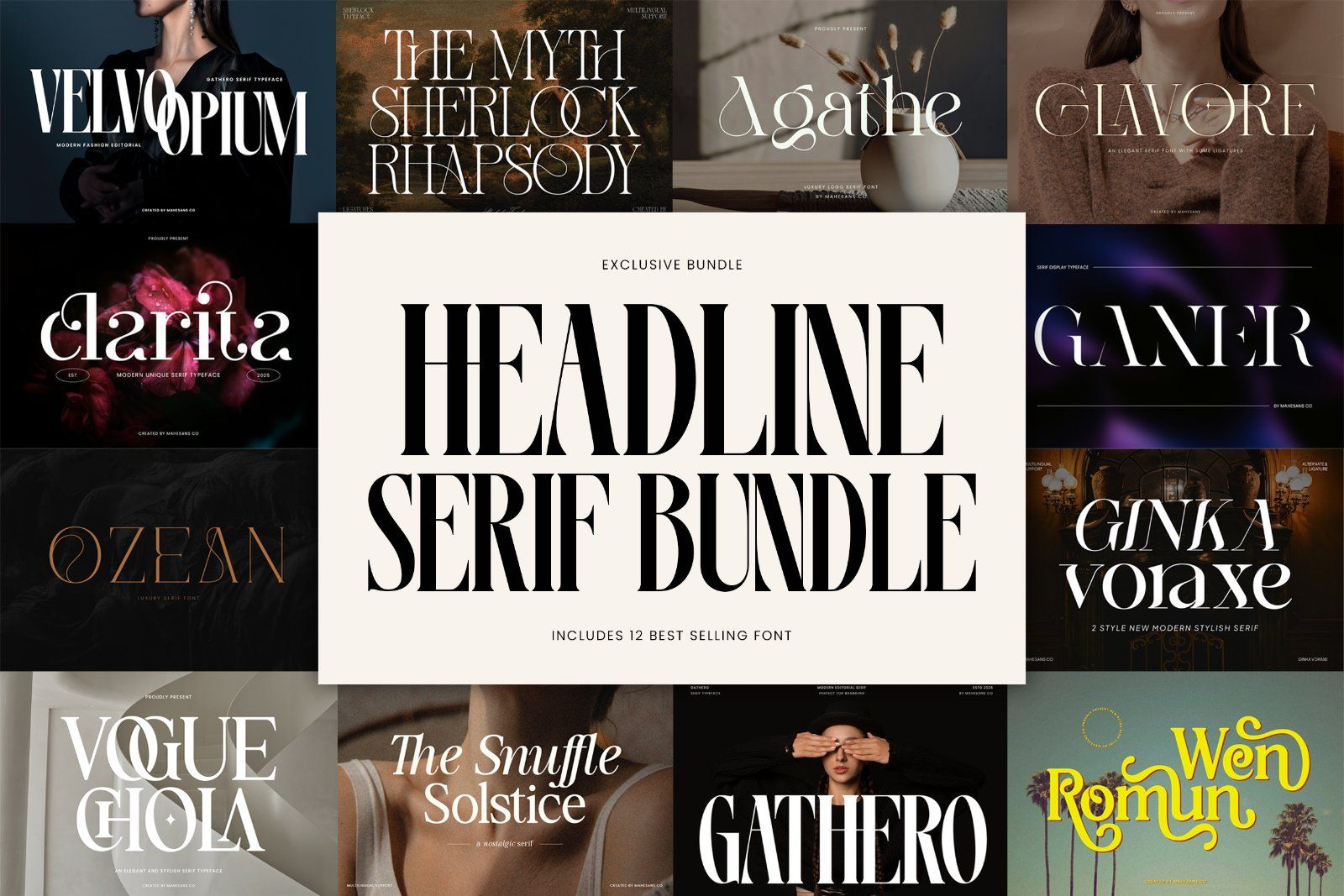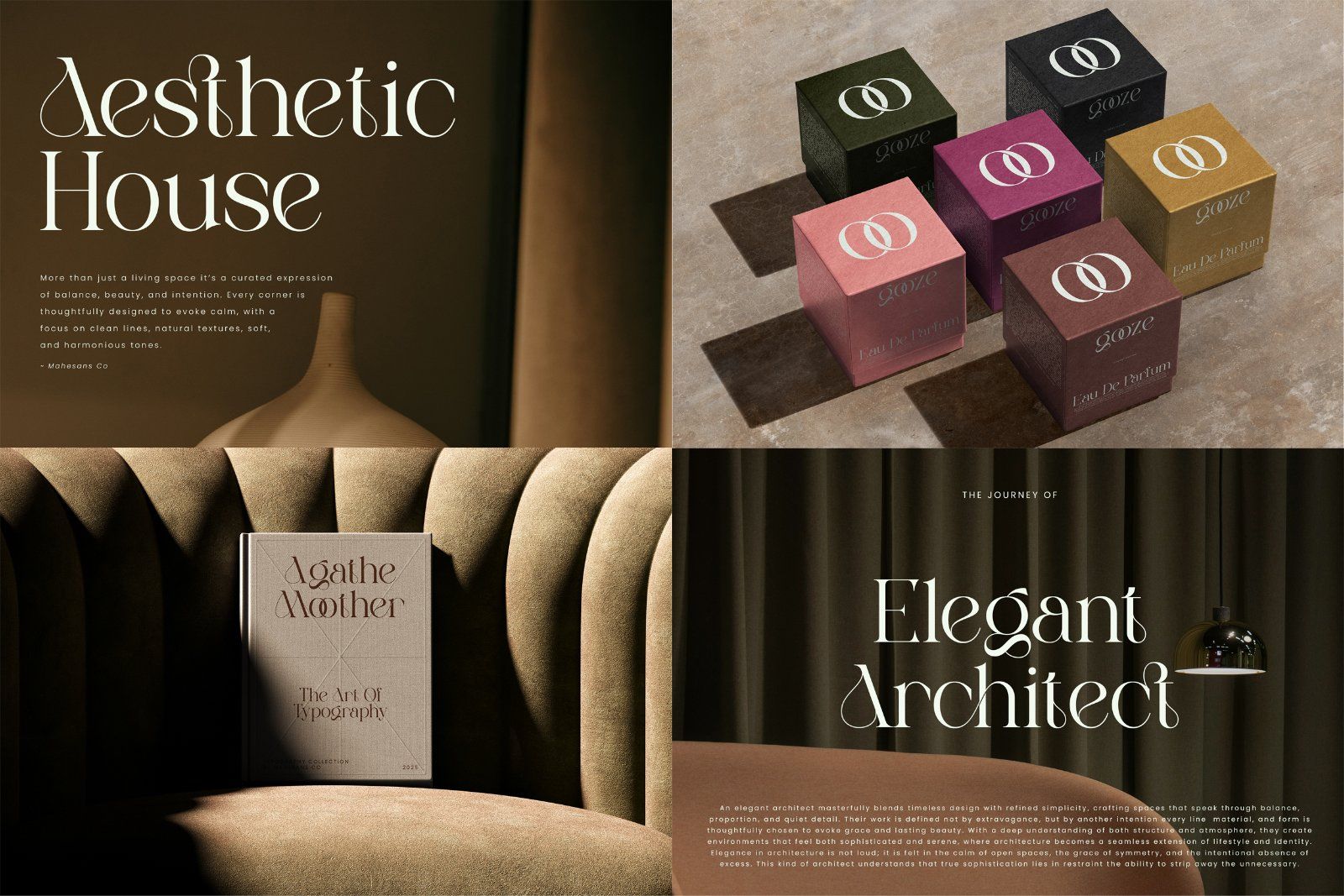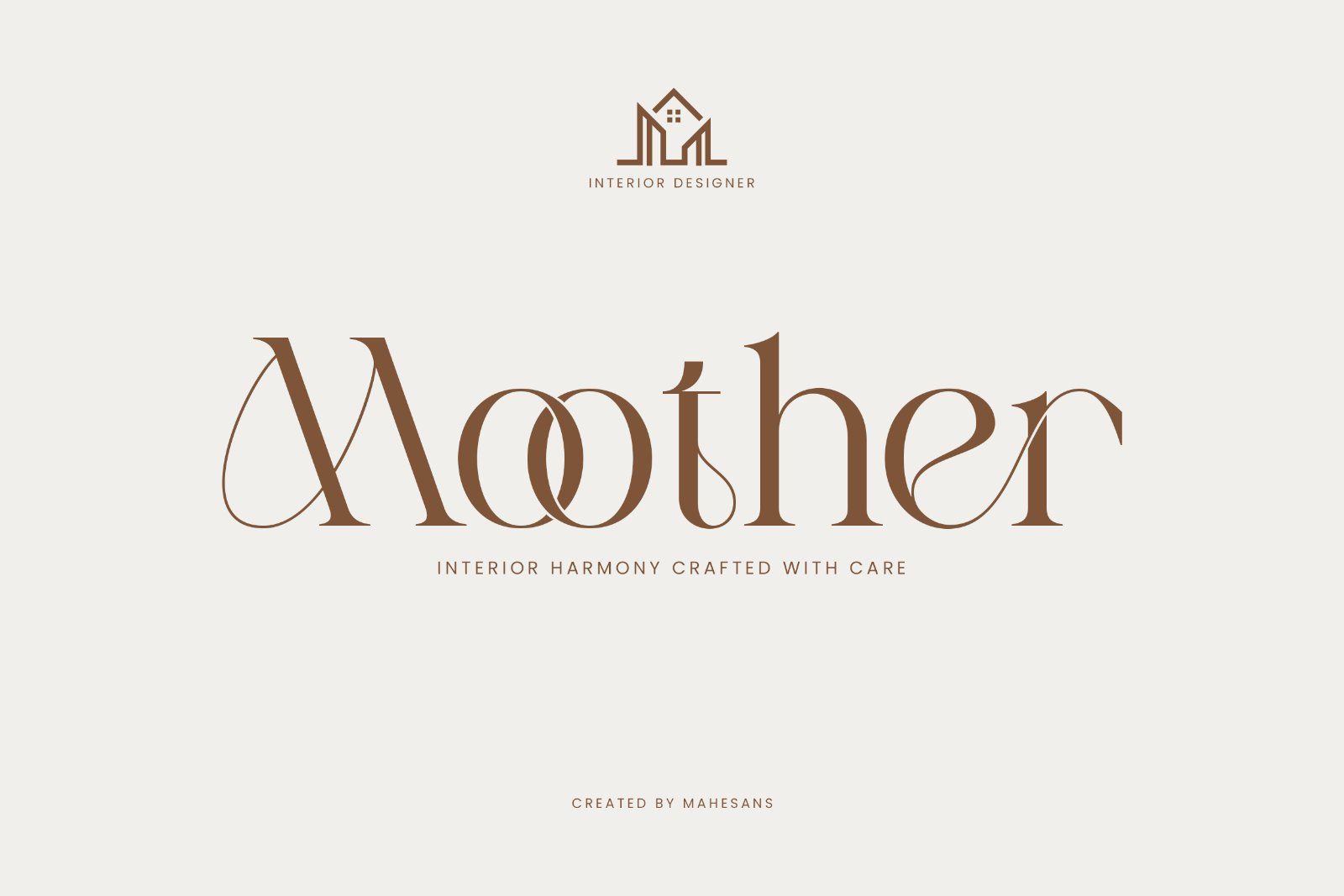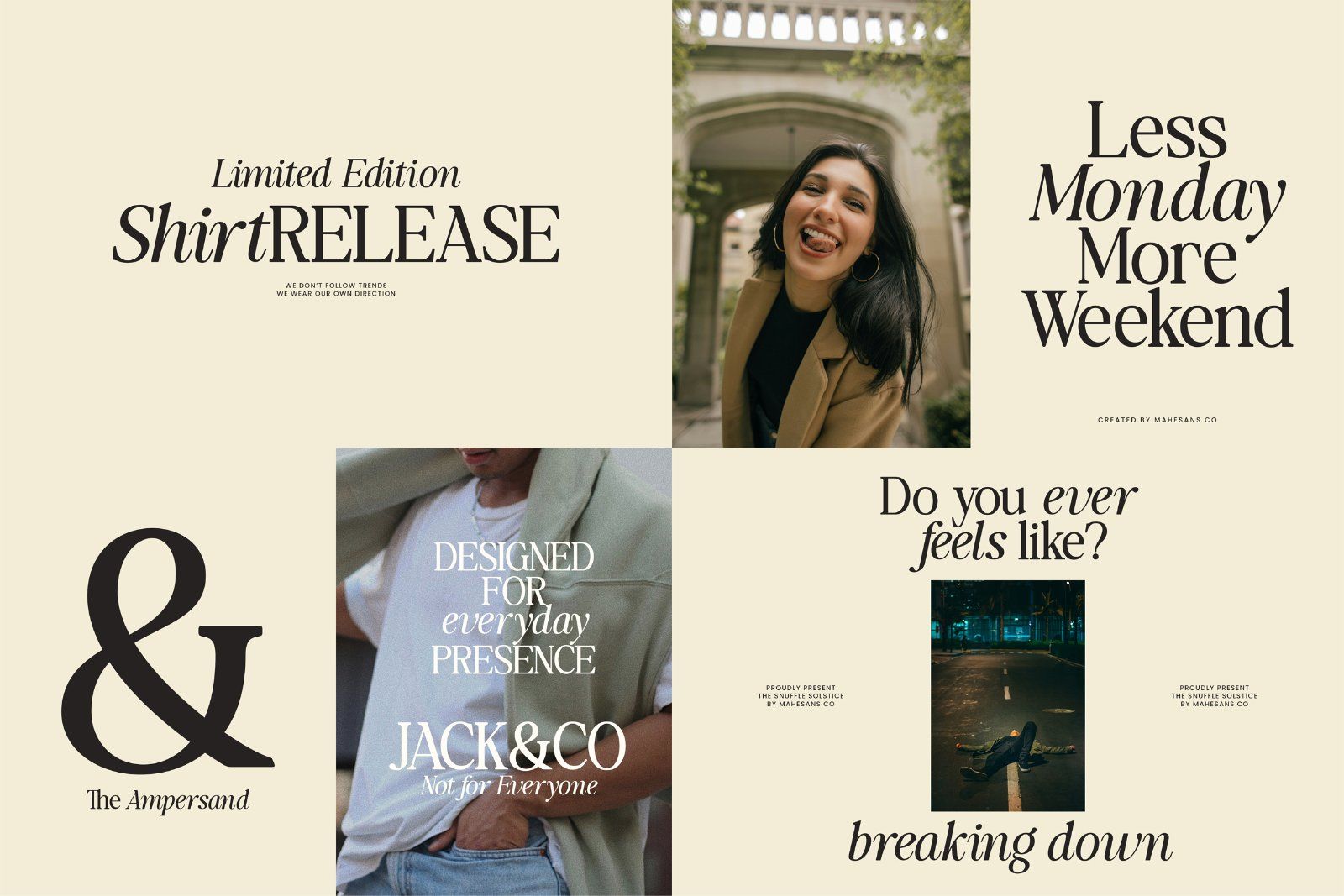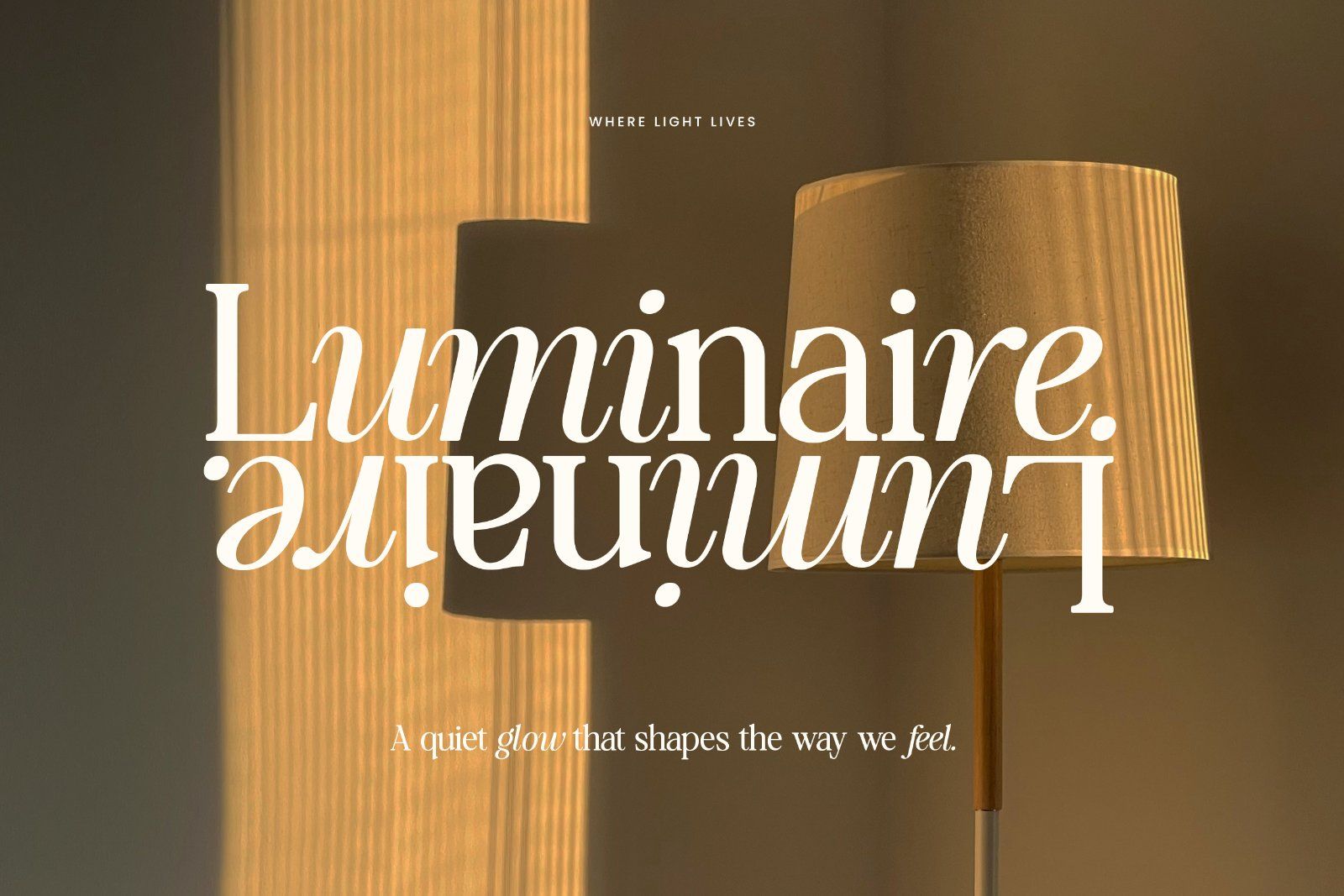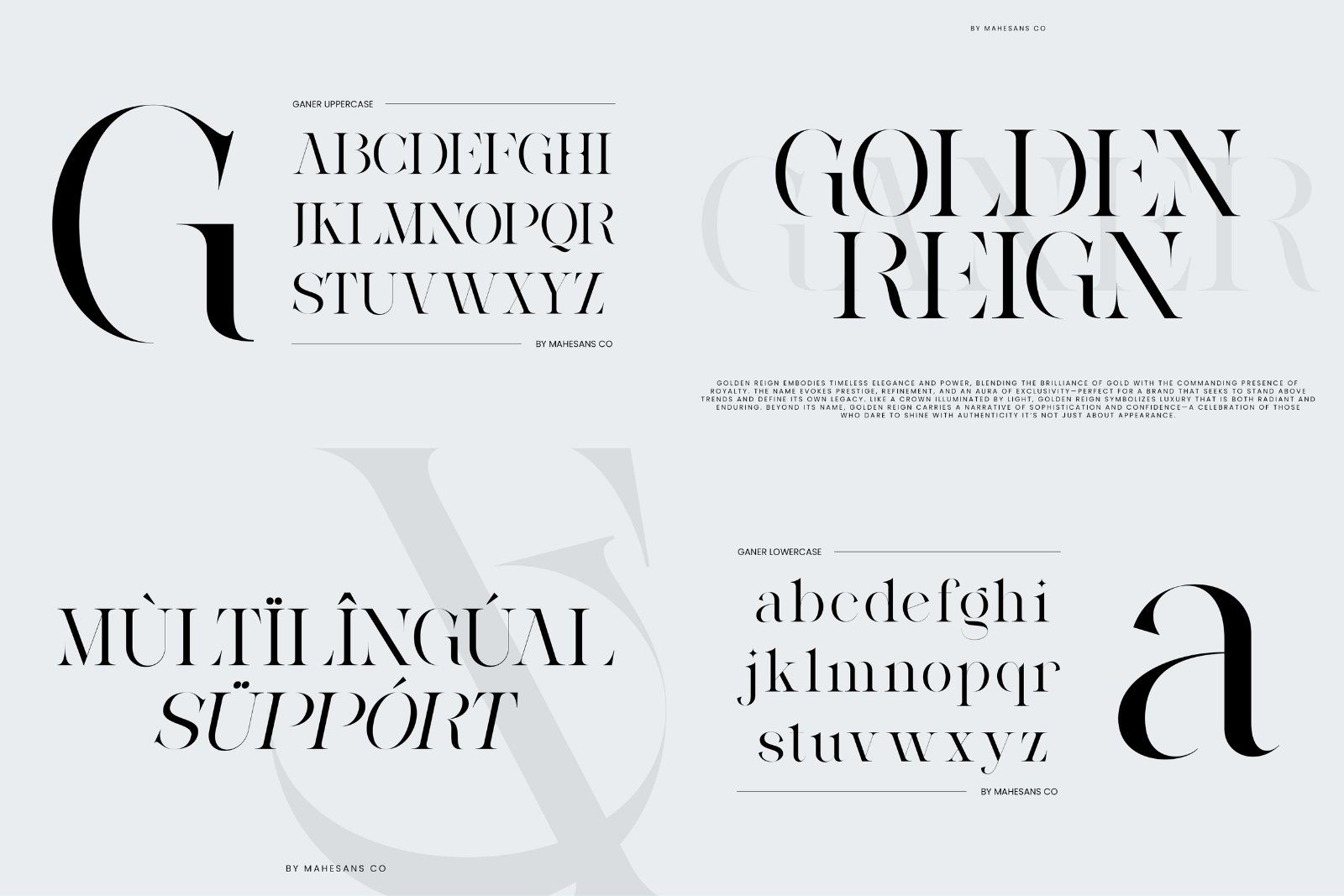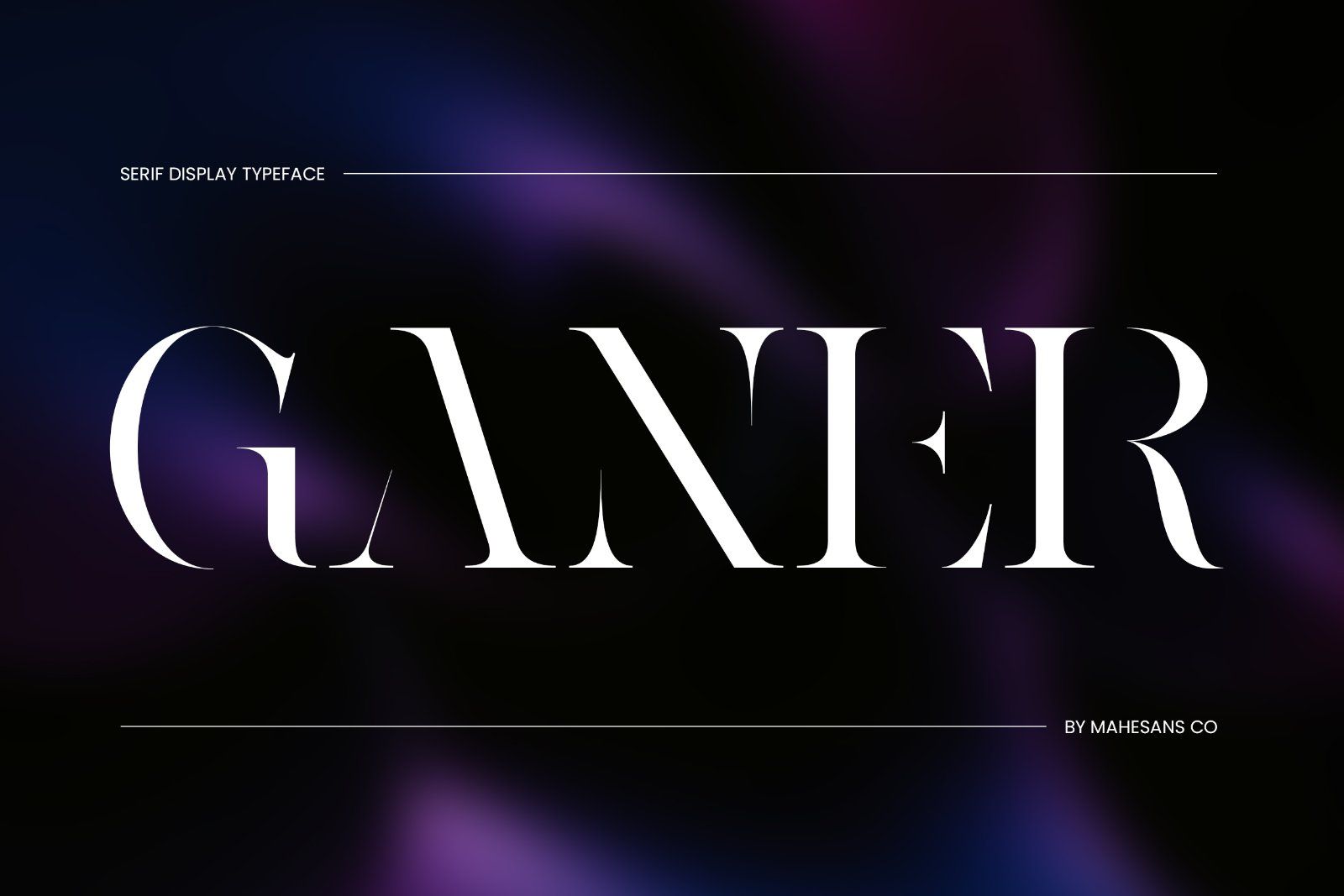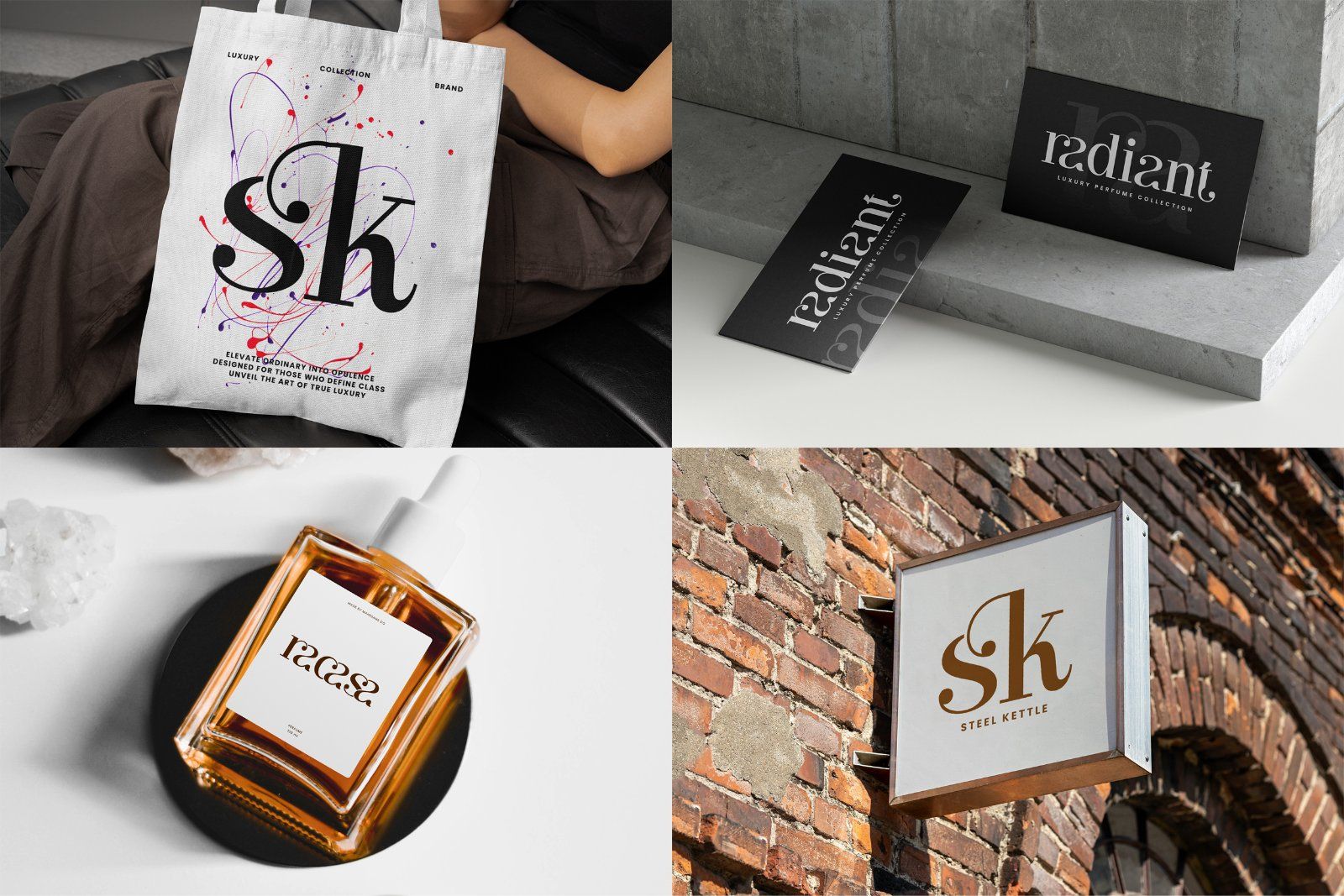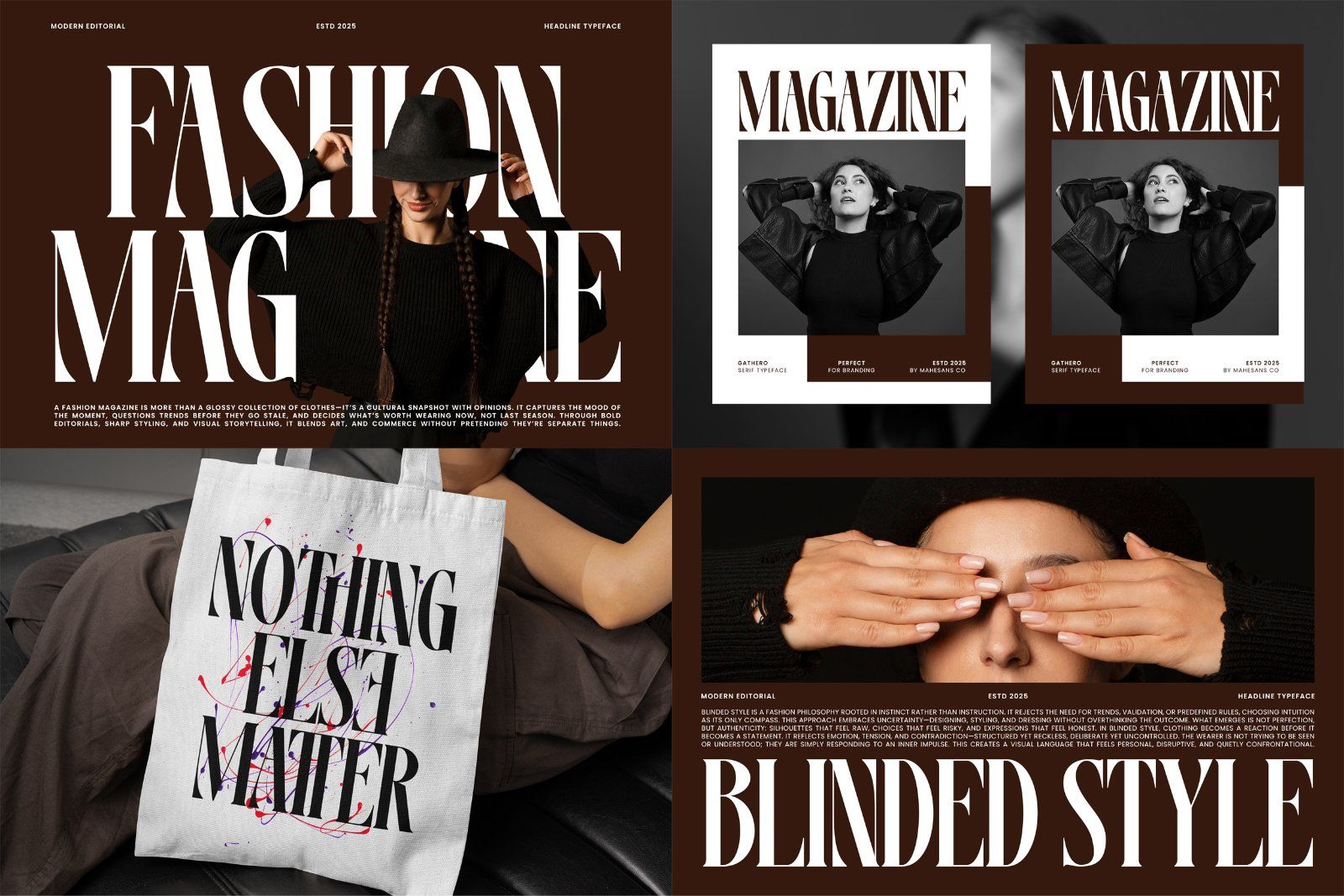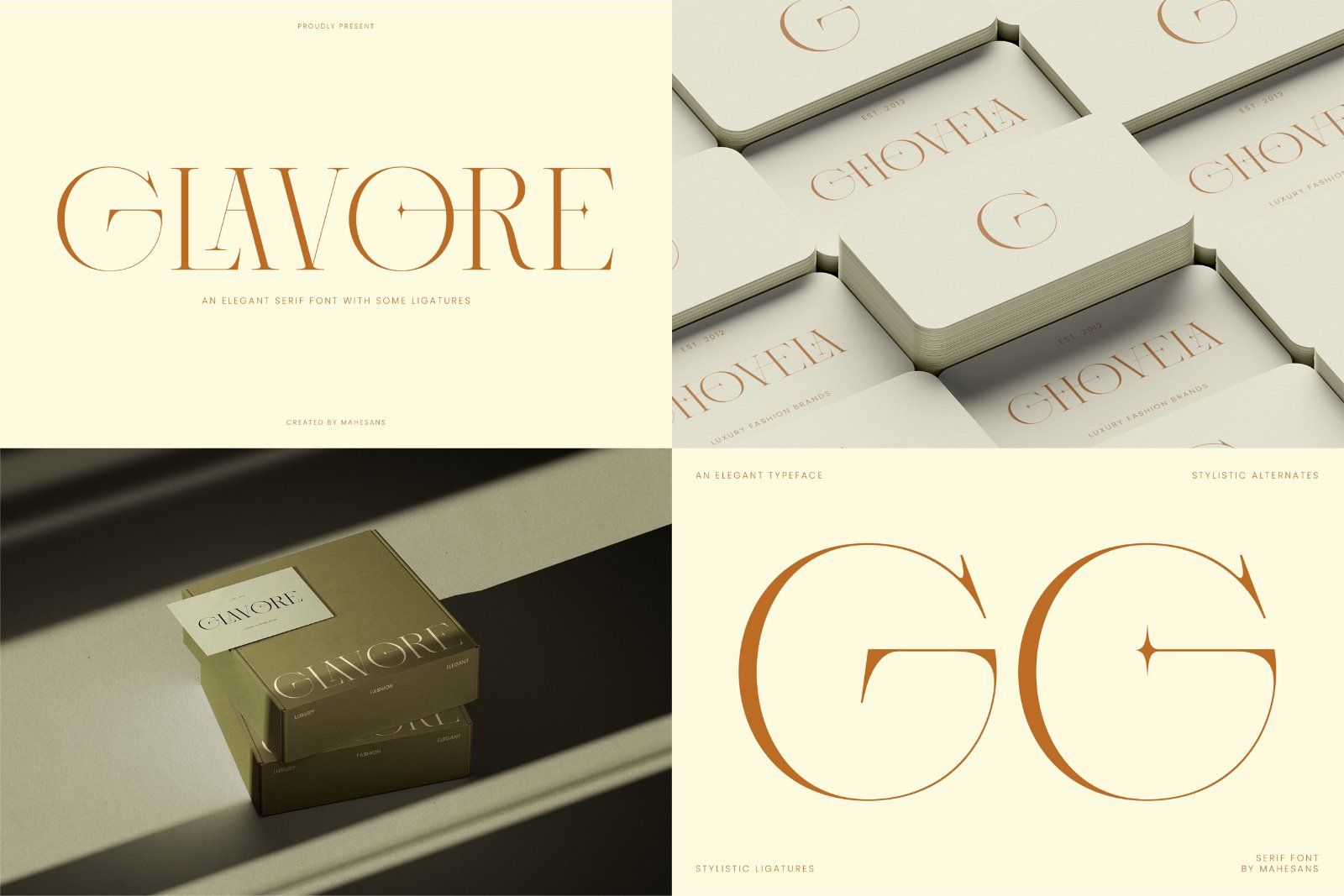
This exclusive bundle brings together 12 of our best-selling headline serif fonts, crafted for designers who want impact, elegance, and versatility in one powerful collection.
From modern editorial serifs to classic, expressive, and high-contrast styles, this bundle gives you a complete headline toolkit for high-end visual storytelling.
Fonts Included:
• Sherlock
• Gathero
• Wen Romun
• The Snuffle Solstice
• Ginka Voraxe
• Agathe
• Clarita
• Vorage
• Vogue Chola
• Ganer
• Ozean
• Glavore
• Logos & Branding Identity
• Editorial & Magazine Layouts
• Fashion & Luxury Branding
• Packaging Design
• Posters, Quotes & Social Media Templates
• Alternates & Ligatures